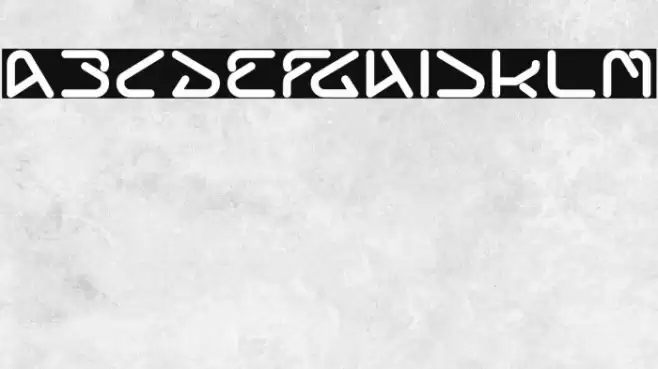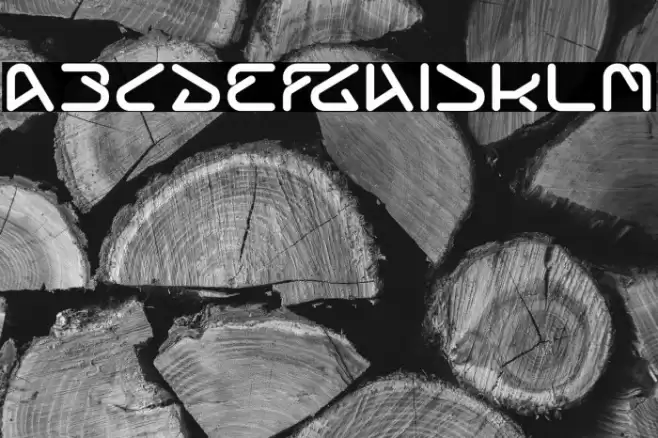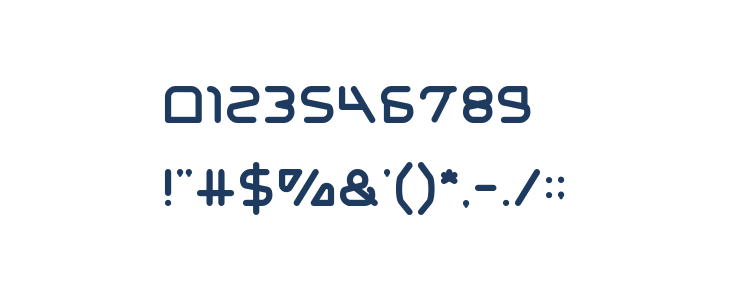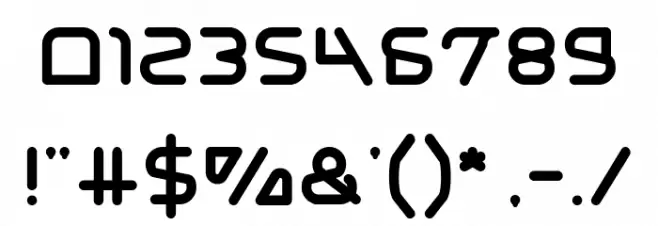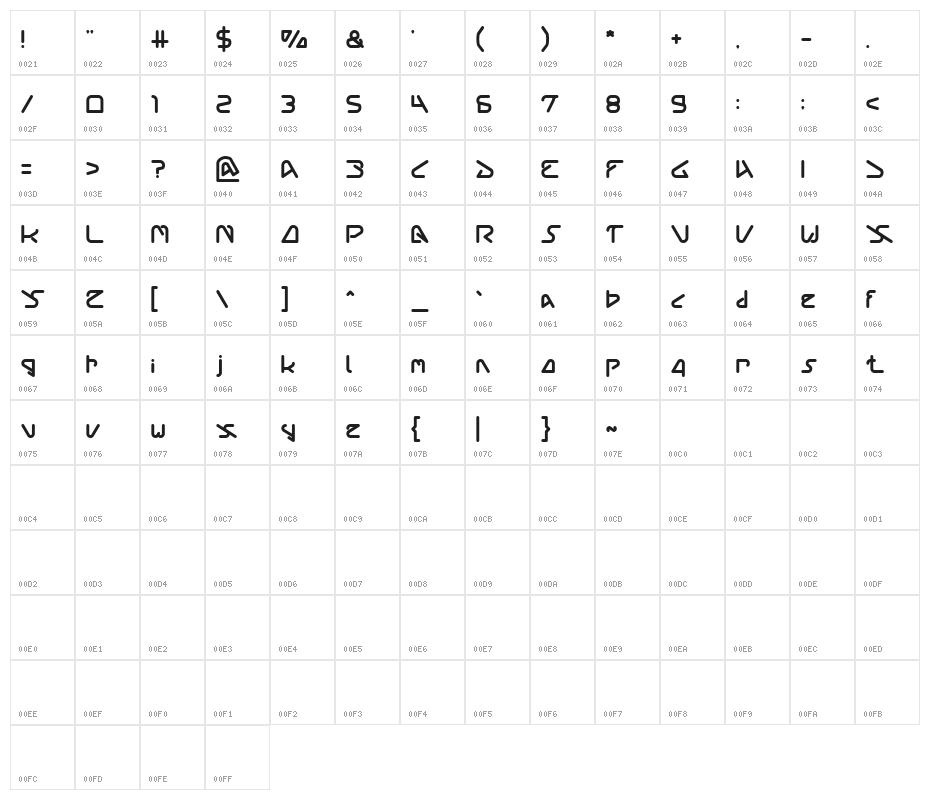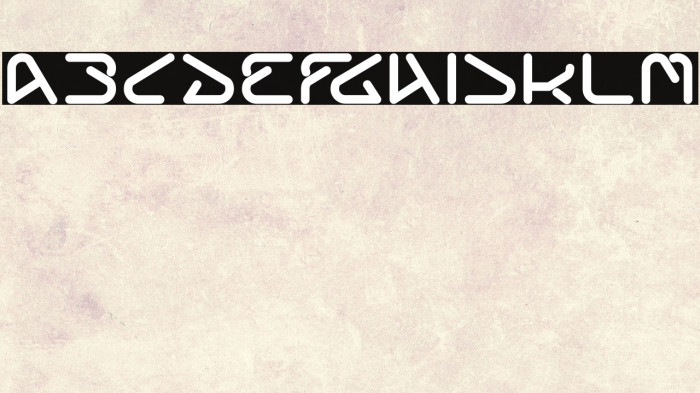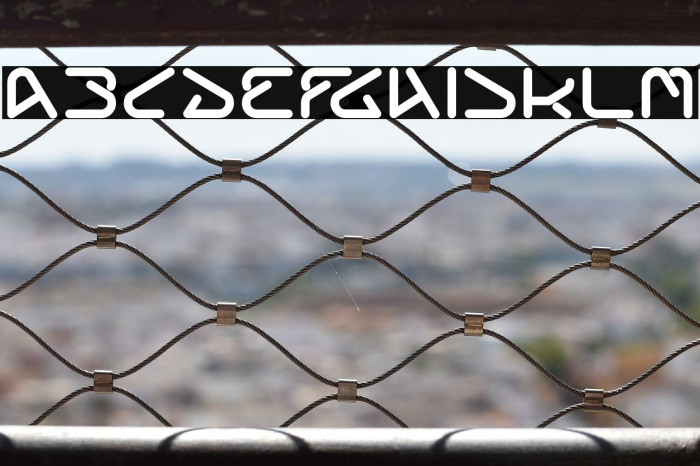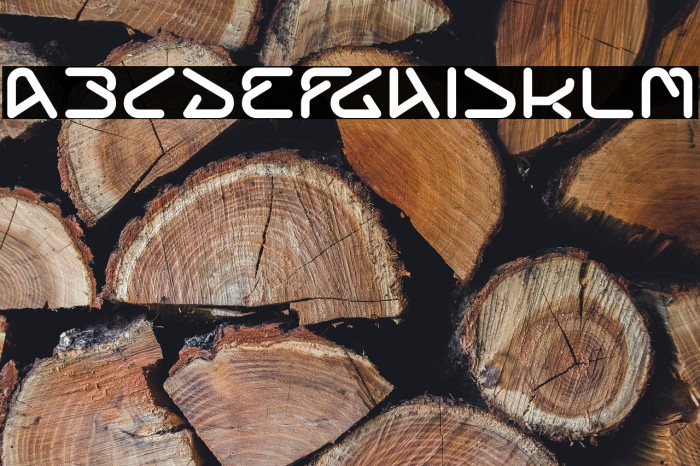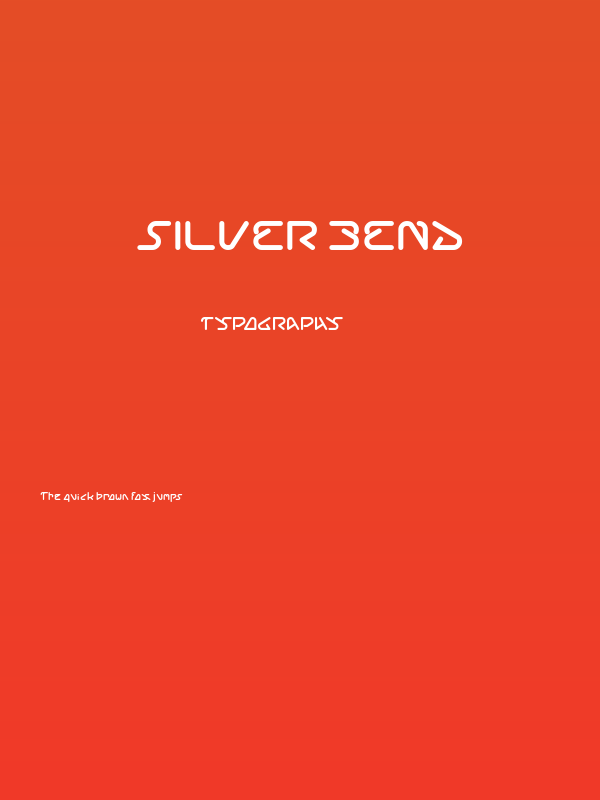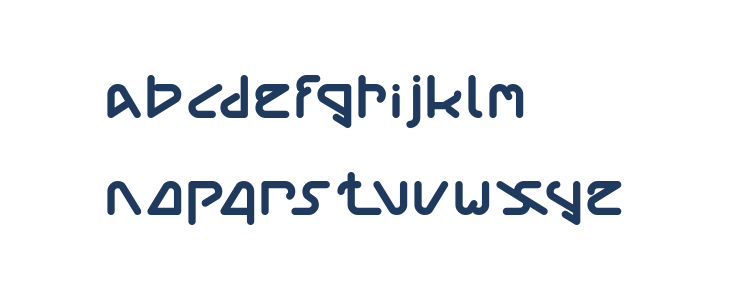
Silver Bend Font
Silver Bend Description
This font features a futuristic and geometric design, characterized by its rounded edges and consistent line thickness. The letters are formed with smooth curves and straight lines, creating a sleek and modern appearance. The uppercase and lowercase letters maintain a uniform style, with a slightly condensed form that enhances readability. Numbers and special characters follow the same design principles, ensuring a cohesive look across all glyphs. The font's unique style makes it stand out, while its clear structure ensures legibility.
A futuristic, geometric font with rounded edges and consistent line thickness from Uncategorized fonts.
- Font: Silver Bend
- Proposed Projects: Ideal for technology branding, sci-fi themed projects, modern advertising, and digital interfaces.